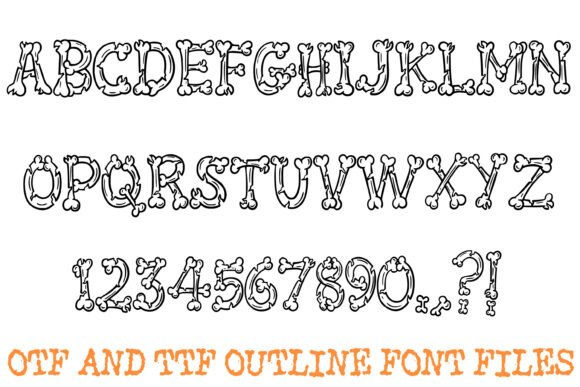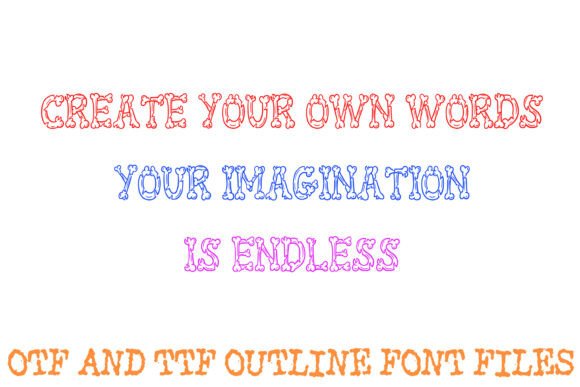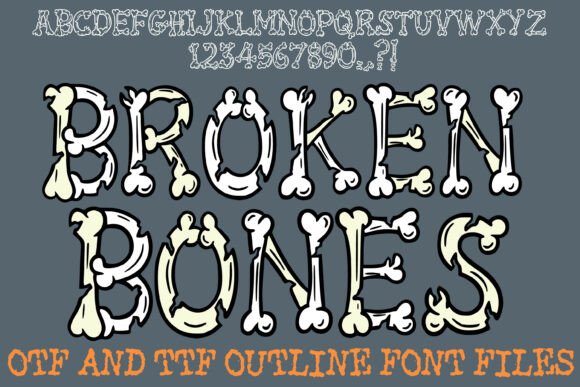
Unleash the Horror: Introducing the Broken Bones Font
Are you a designer or crafter looking for a typography that adds a touch of edginess to your projects? Look no further than the Broken Bones Font, a high-impact, hand-drawn display typeface that captures the jagged, brittle energy of a skeleton in distress. This font is perfect for hardcore Halloween branding, horror-themed streetwear, and edgy holiday apparel.
The Inspiration Behind the Broken Bones Font
The Broken Bones Font is a unique and creative take on traditional typography. While maintaining the playful “bouncy” geometry of classic bone sets, this version introduces severe fractures, splintered edges, and missing fragments across every character, number, and punctuation mark. This design gives the font a sophisticated, “rattled” authenticity that feels both ancient and rebellious.
As a designer or crafter, you know that sometimes “perfect” isn’t always the goal. You need a typography that adds an extra layer of grit to your projects. The Broken Bones Font is the ideal choice for anyone looking to add a touch of horror and edginess to their designs. Whether you are working on sublimation T-shirts, Cricut vinyl decals, or spooky party invites, this font is sure to make your projects stand out.
Key Features of the Broken Bones Font
- Hand-drawn display typeface: Each character is carefully crafted to give the font a unique and authentic look.
- Severe fractures and splintered edges: The font features severe fractures and splintered edges, giving it a jagged and brittle energy.
- Missing fragments: Every character, number, and punctuation mark has missing fragments, adding to the font’s edgy and distressed look.
- Playful “bouncy” geometry: The font maintains a playful “bouncy” geometry, making it perfect for designs that require a touch of whimsy.
Use Cases for the Broken Bones Font
The Broken Bones Font is perfect for a variety of design projects, including:
- Hardcore Halloween branding: Create spooky and eye-catching logos and branding materials for your Halloween-themed business or event.
- Horror-themed streetwear: Design edgy and eye-catching apparel for horror fans and enthusiasts.
- Edgy holiday apparel: Create unique and eye-catching apparel for holidays like Halloween, Christmas, and Easter.
- Sublimation T-shirts: Use the Broken Bones Font to create eye-catching and unique sublimation T-shirts.
- Cricut vinyl decals: Design spooky and eye-catching vinyl decals for your Cricut projects.
- Spooky party invites: Create eye-catching and unique party invitations for Halloween and other spooky-themed events.
Tips for Using the Broken Bones Font
Here are a few tips for using the Broken Bones Font in your designs:
- Experiment with different colors: The Broken Bones Font looks great in a variety of colors, from bold and bright to dark and muted.
- Pair with other fonts: Try pairing the Broken Bones Font with other fonts to create a unique and eye-catching look.
- Use it sparingly: The Broken Bones Font is a bold and eye-catching font, so use it sparingly to avoid overwhelming your design.
The Broken Bones Font is a unique and creative typography that adds a touch of edginess to any design project. With its severe fractures, splintered edges, and missing fragments, this font is perfect for designers and crafters looking to create eye-catching and unique designs. Whether you are working on hardcore Halloween branding, horror-themed streetwear, or edgy holiday apparel, the Broken Bones Font is the ideal choice.